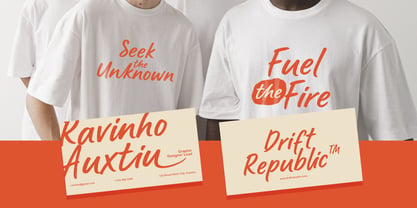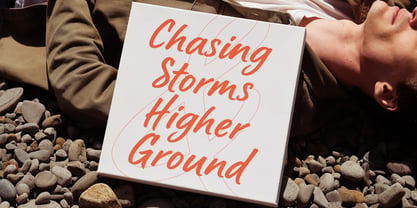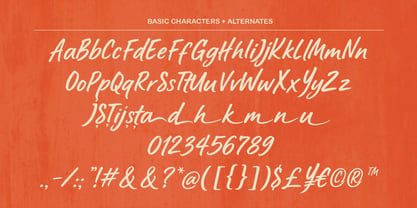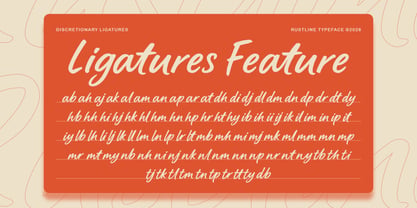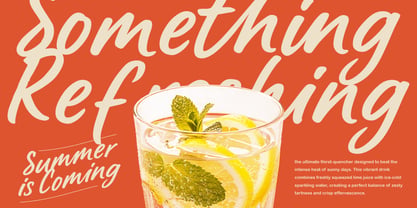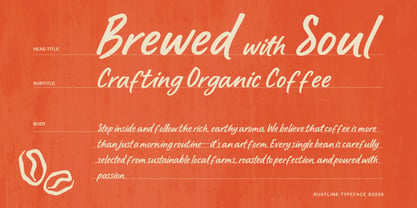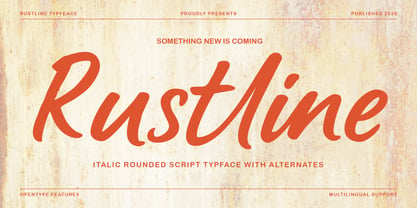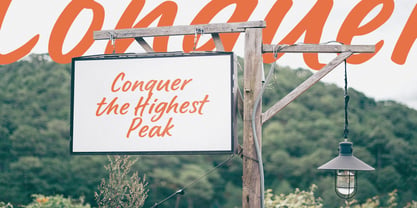
Rustline
by NamelaType
The Rustline Font Family was designed by Nur Syamsi and published by NamelaType. Rustline contains 1 styles. More about this family
Rustline is a bold italic script typeface inspired by handcrafted lettering, vintage sign painting, artisan cafés, and modern lifestyle branding. It combines smooth brush-style strokes, rounded curves, and flowing connections to create warm, expressive typography with excellent readability. Featuring over 600 glyphs, ligatures, and stylistic alternates, Rustline offers flexibility for custom-looking designs. Carefully refined with professional OpenType features, it is ideal for branding, packaging, editorial design, signage, logos, and digital media, delivering a timeless handcrafted aesthetic that balances authentic personality with contemporary versatility.
Designers: Nur Syamsi
Foundry: NamelaType